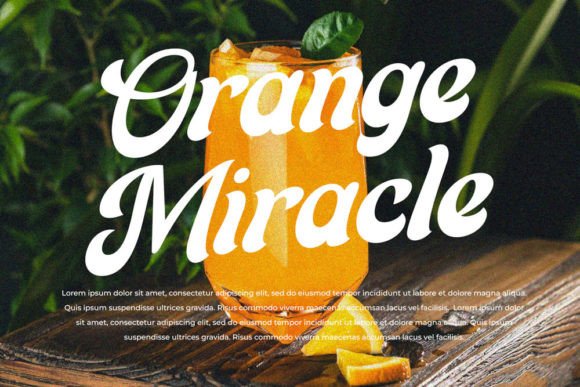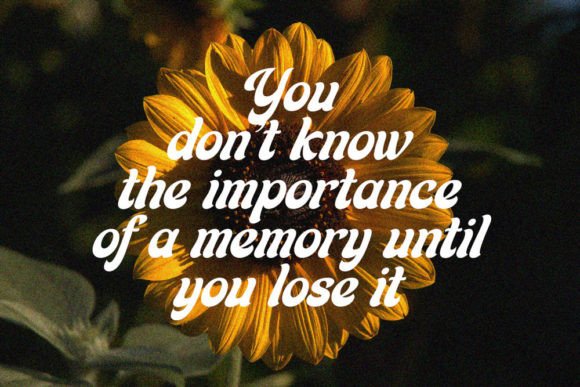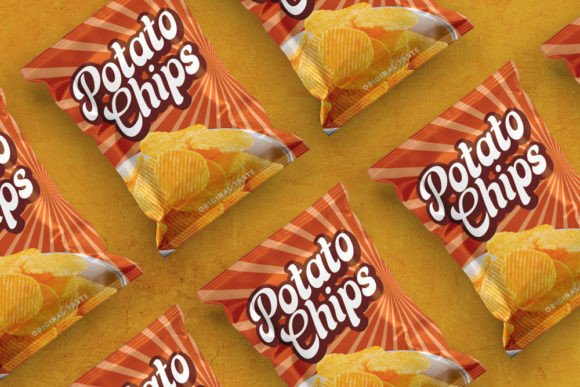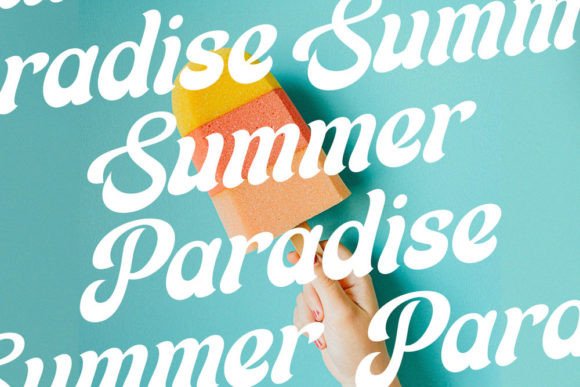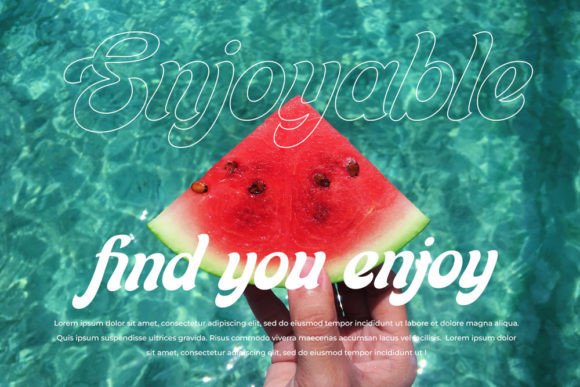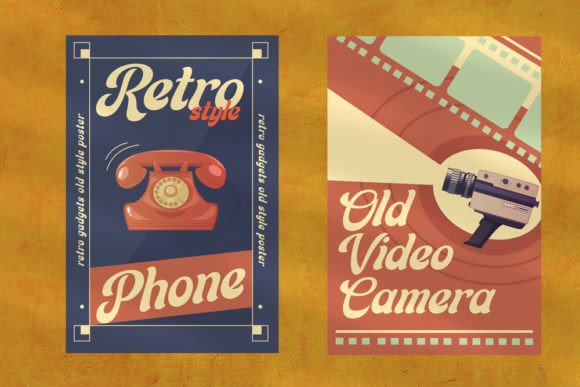
Introducing Bigsoul Font: The Ultimate Retro Bold Script for Modern Design
Are you looking for a font that can add a touch of nostalgia to your designs while still making a bold statement? Look no further than Bigsoul Font, a retro bold script font that brings back the iconic style of the 1960s. With its unique blend of vintage flair and modern appeal, Bigsoul is the perfect choice for designers and crafters looking to elevate their work to the next level.
The Retro Revival: How Bigsoul Font Brings Back the 60s Feel
Bigsoul Font is inspired by the classic typography of the 1960s, an era known for its bold, playful, and expressive design aesthetic. The font features thick, swooping lines and elegant curves, reminiscent of iconic signage and advertising from the era. With Bigsoul, you can add a touch of retro charm to your designs, from logotypes and branding to promotional ads and packaging.
Endless Design Possibilities with Bigsoul Font
Bigsoul Font is incredibly versatile, making it suitable for a wide range of design applications. Here are just a few ideas to get you started:
• Logotypes and Branding: Create a lasting impression with a custom logotype that exudes confidence and style.
• Promotional Ads: Grab attention with bold, eye-catching headlines that demand to be noticed.
• Quotes Design: Add a touch of elegance to inspirational quotes and sayings.
• Packaging: Stand out on store shelves with packaging that features Bigsoul’s unique retro flair.
• T-Shirt Designs: Create stylish and memorable apparel that will appeal to anyone who loves retro style.
• Merchandise: From posters to mugs, Bigsoul Font is the perfect choice for creating a wide range of merchandise.
Why Choose Bigsoul Font?
So why choose Bigsoul Font over other fonts on the market? Here are just a few reasons:
• Unique Style: Bigsoul Font offers a distinctive retro look that’s sure to set your designs apart.
• High-Quality Design: With its clear, crisp lines and elegant curves, Bigsoul Font is perfect for both digital and print applications.
• Ease of Use: Bigsoul Font is easy to read and works well in a variety of design contexts.
• Time-Saving: With Bigsoul Font, you can create professional-looking designs in no time, saving you time and effort.
Take Your Work to the Next Level with Bigsoul Font
Whether you’re a professional designer or a crafty DIY enthusiast, Bigsoul Font is the perfect tool for taking your work to the next level. With its bold, retro style and endless design possibilities, Bigsoul Font is sure to inspire your creativity and help you achieve your design goals.